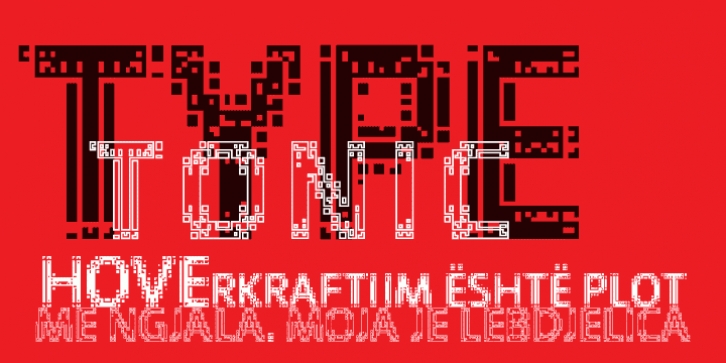
Typetonic is a display font published by Wilton Foundry.
Typetonic is great display face for anything related to design, art or technology. Available in Crossplatform Opentype.